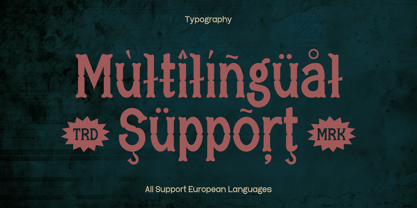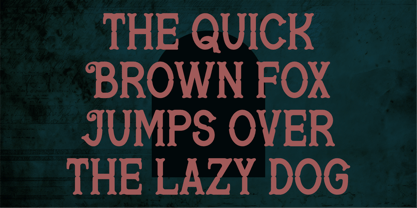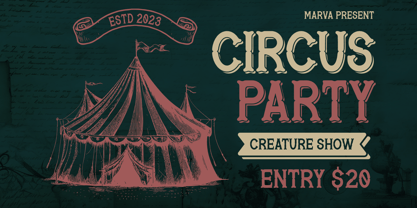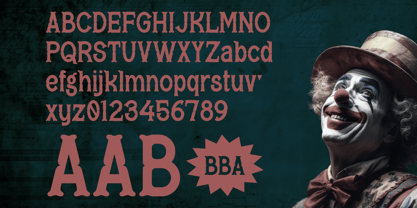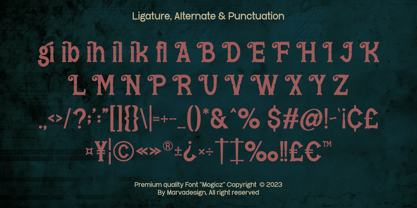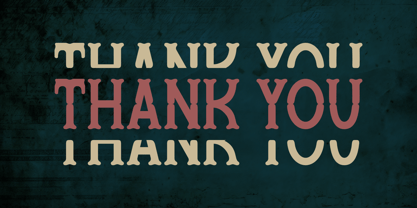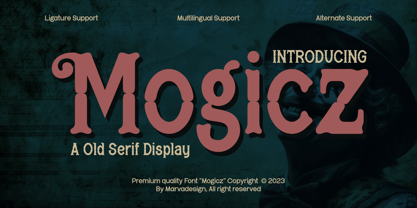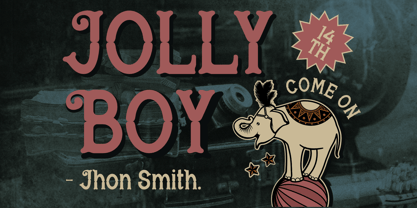
Mogicz
by Marvadesign
The Mogicz Font Family was designed by Febrie Setiawan and published by Marvadesign. Mogicz contains 1 styles. More about this family
Introducing Mogicz is a vintage-inspired serif display typeface that evokes a classic circus or carnival atmosphere. It features bold, decorative letterforms with pronounced serifs and subtle ornamental details that add a touch of nostalgia. The typeface includes both uppercase and lowercase characters, along with numerals and special glyphs that enhance its versatility.
The letterforms are characterized by slightly exaggerated curves and thick, sturdy strokes, giving the font a strong and playful presence. The inclusion of alternates and ligatures provides additional customization options, making it ideal for creative and themed designs. The font’s color scheme and shadowing effects in the promotional materials further emphasize its vintage appeal, reminiscent of early 20th-century signage, posters, and entertainment advertisements.
With multilingual support and stylistic alternates, this font is well-suited for branding, event posters, and themed packaging. Its distinctive aesthetic makes it particularly effective for projects related to circus themes, vintage entertainment, and theatrical presentations.